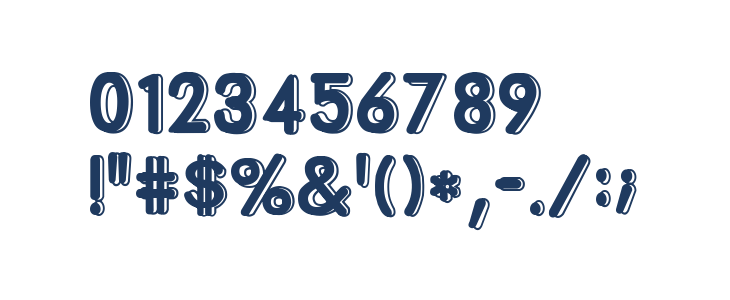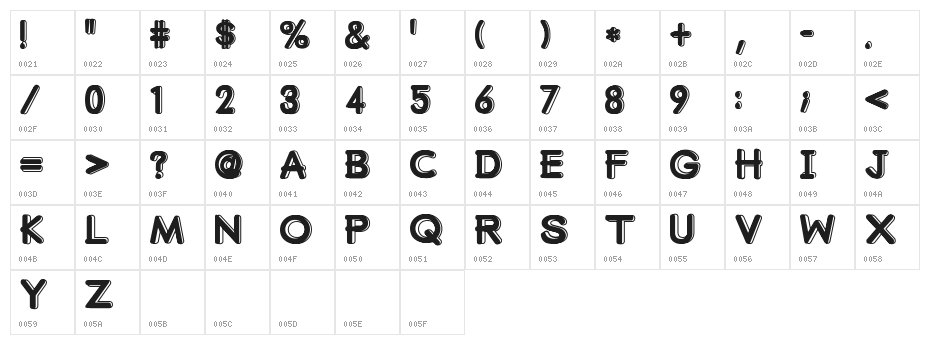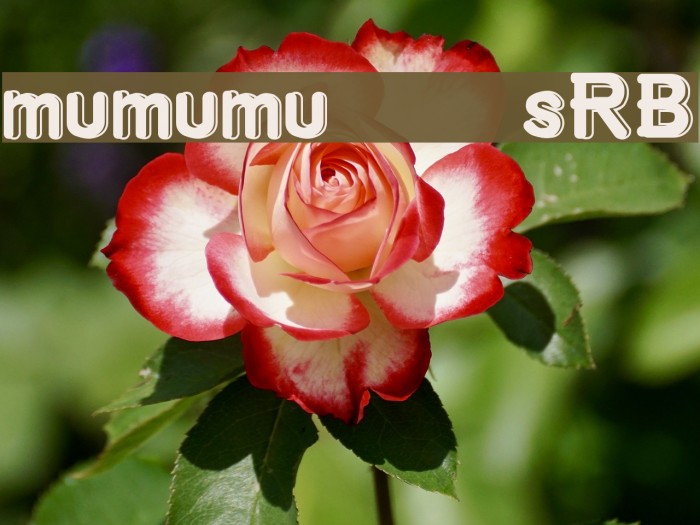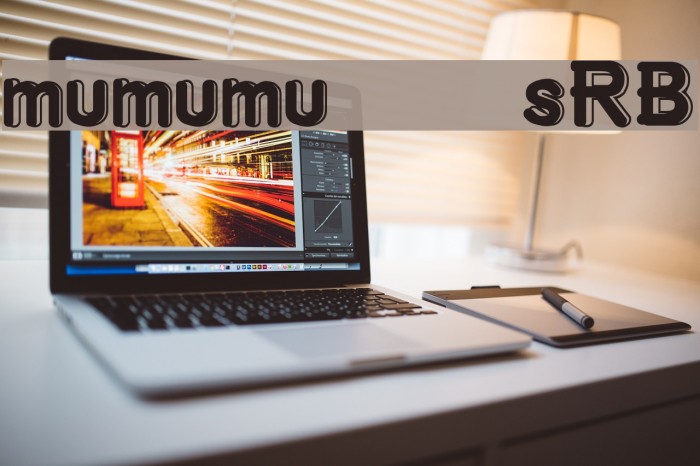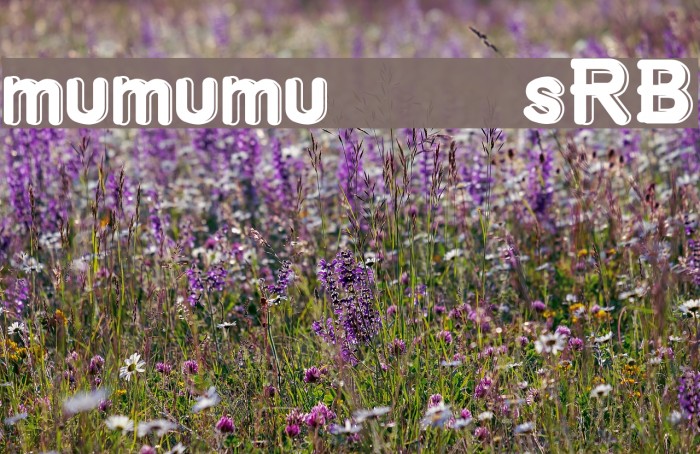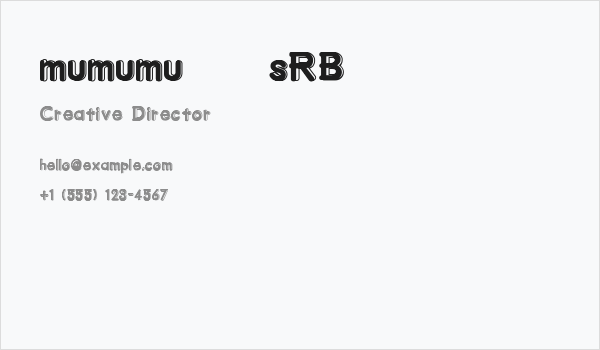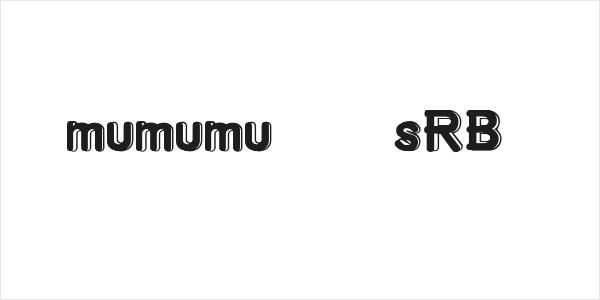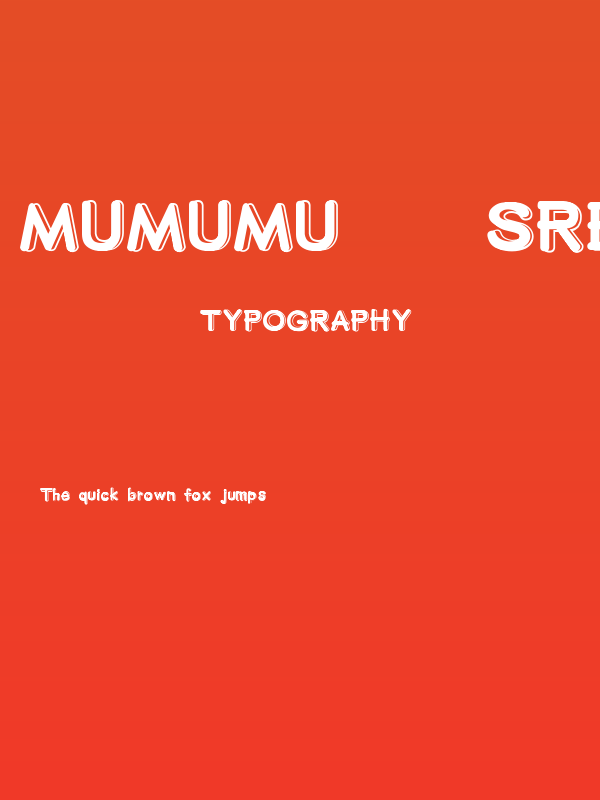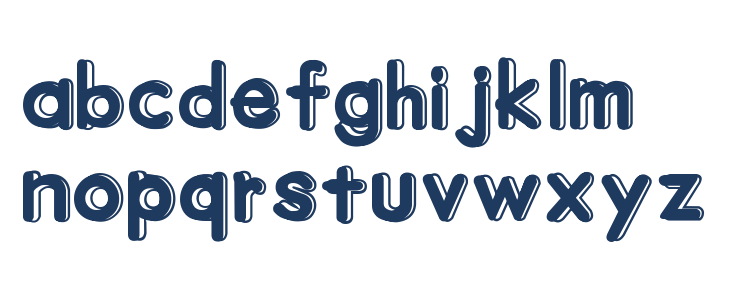
mumumu [sRB] Font
mumumu [sRB] Description
This font features a bold, playful style with a three-dimensional effect created by a thick outline and shadow. The characters are rounded and have a smooth, consistent stroke width, giving them a friendly and approachable appearance. The uppercase and lowercase letters maintain a uniform height, enhancing readability. Numbers and special characters are designed with the same boldness and shadow effect, ensuring consistency across all glyphs. This font is ideal for projects that require a fun and engaging visual impact.
| Overall Style | Playful, Modern |
| Proposed Projects | Ideal for children's books, playful branding, posters, and creative advertising. |